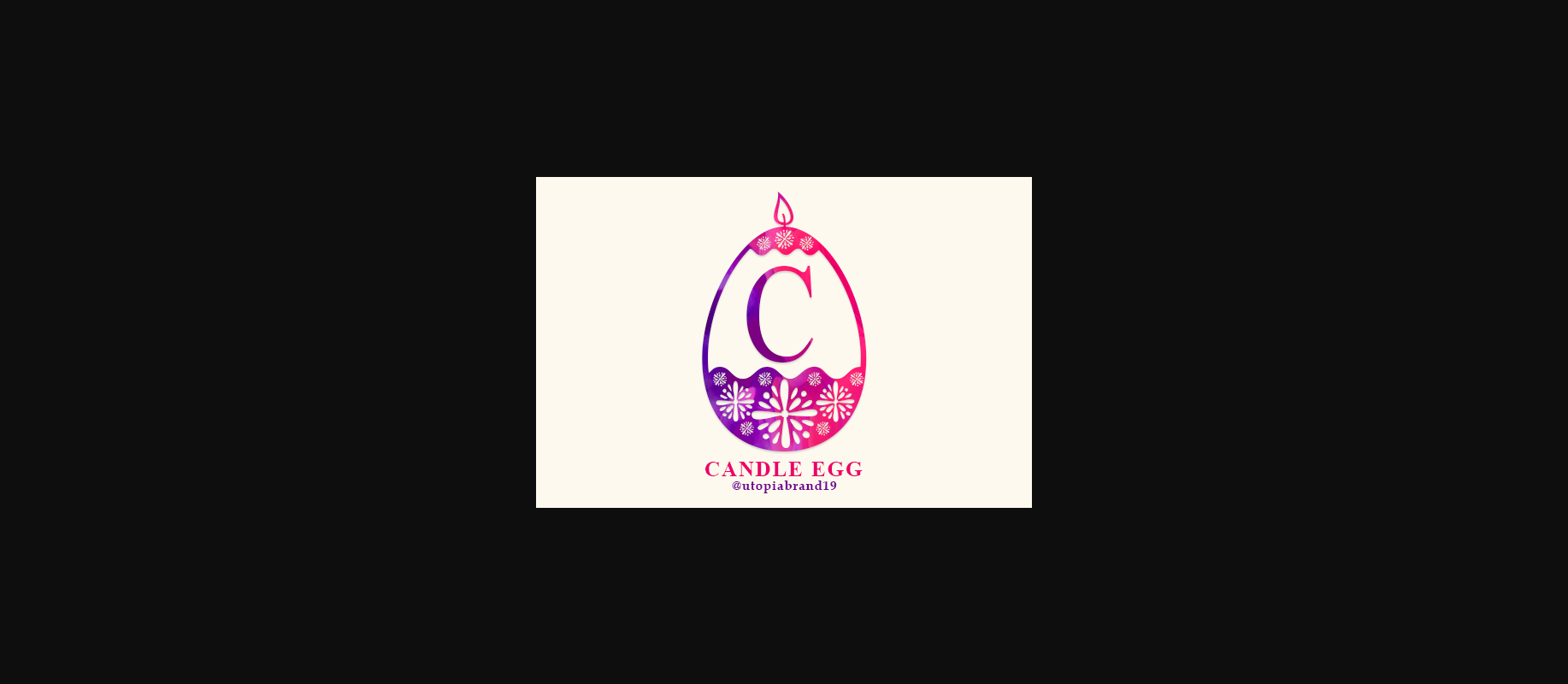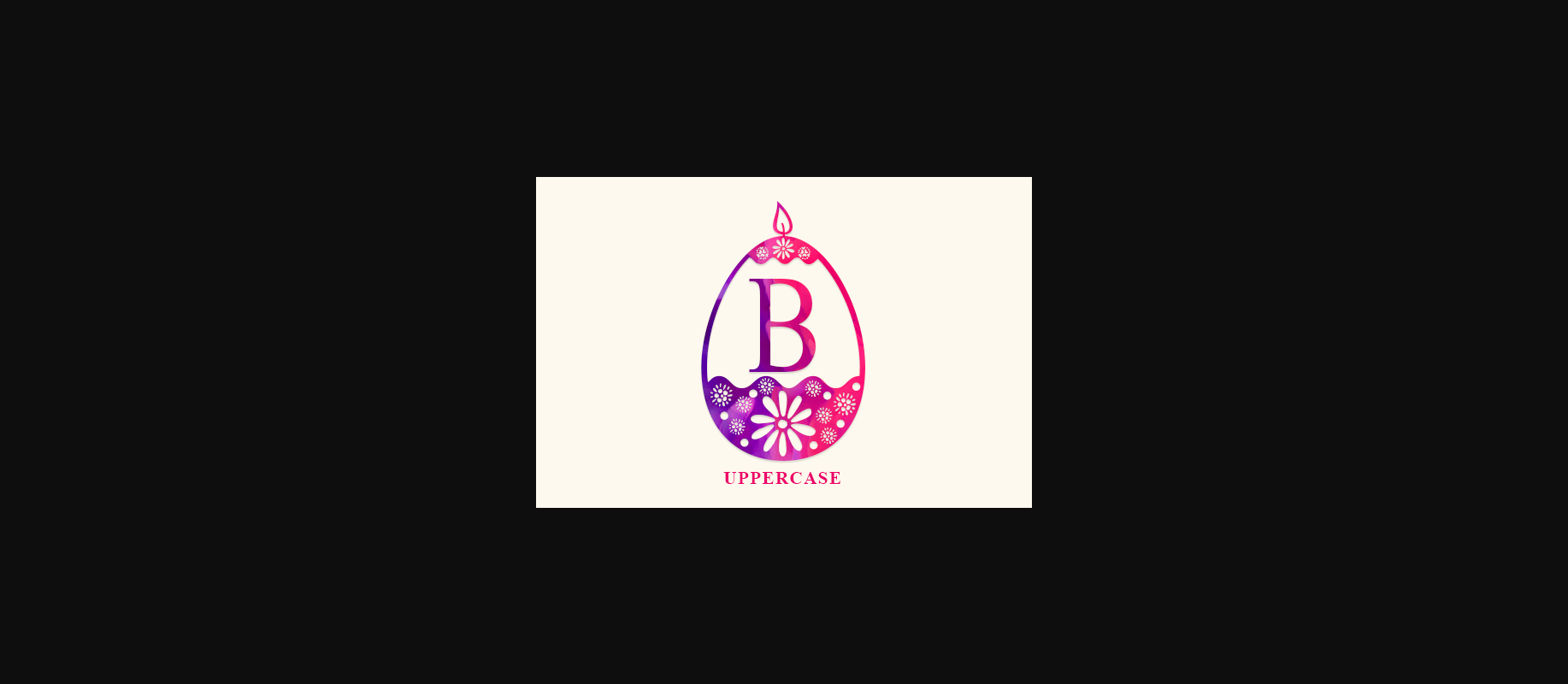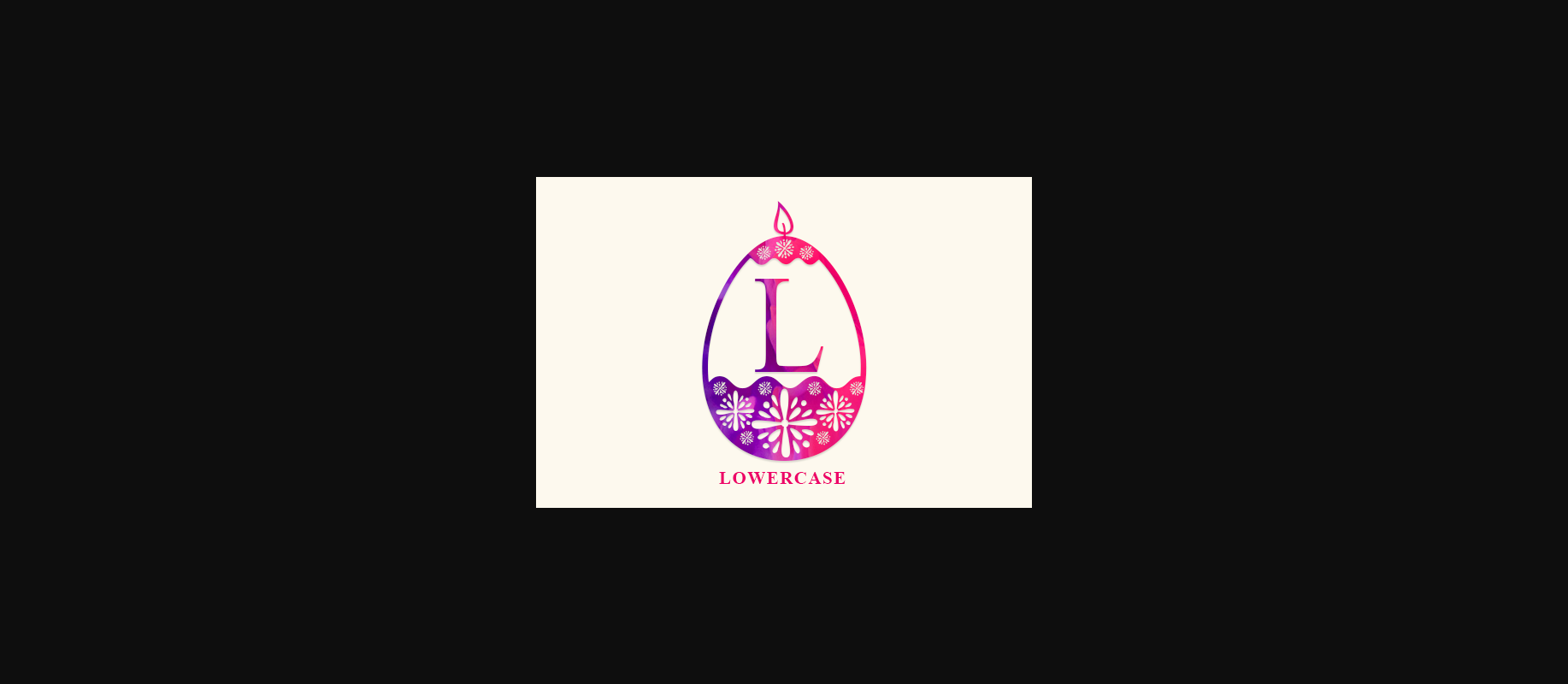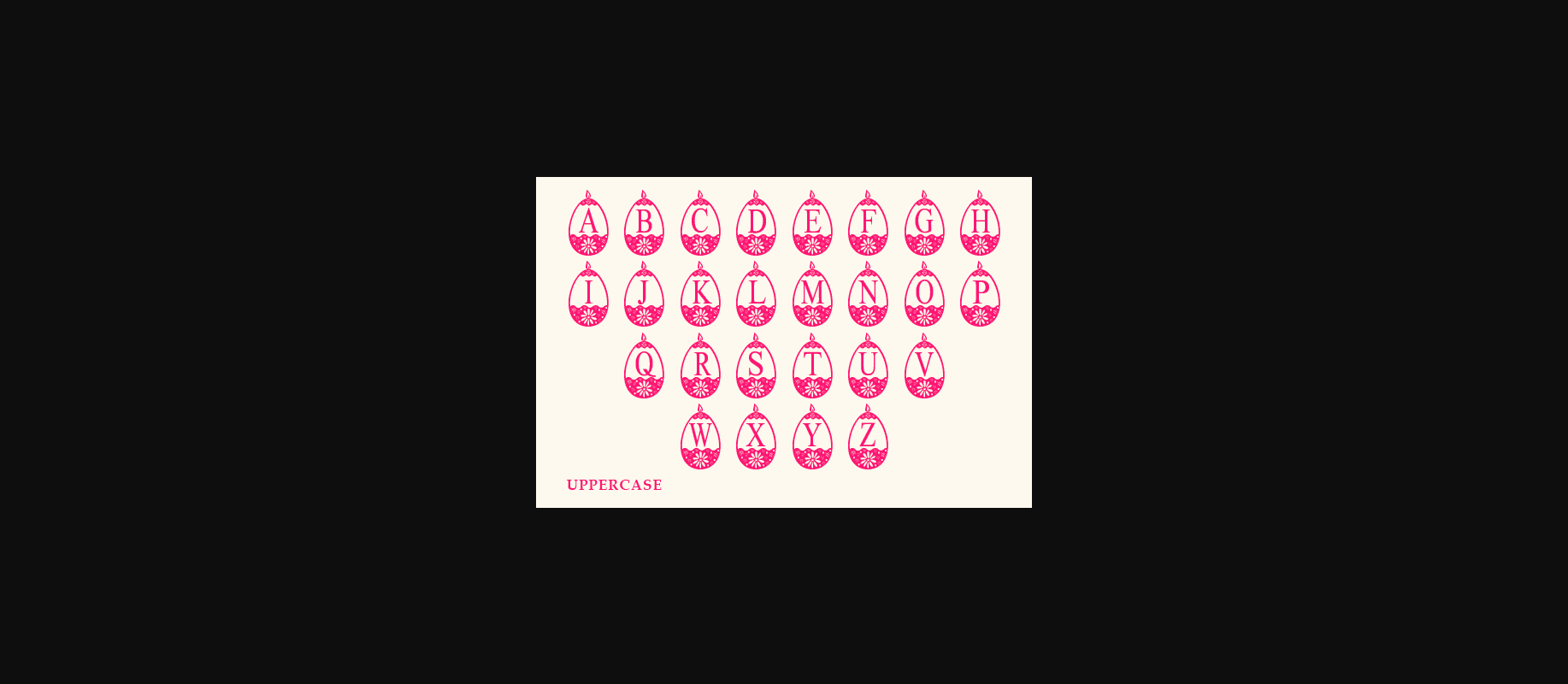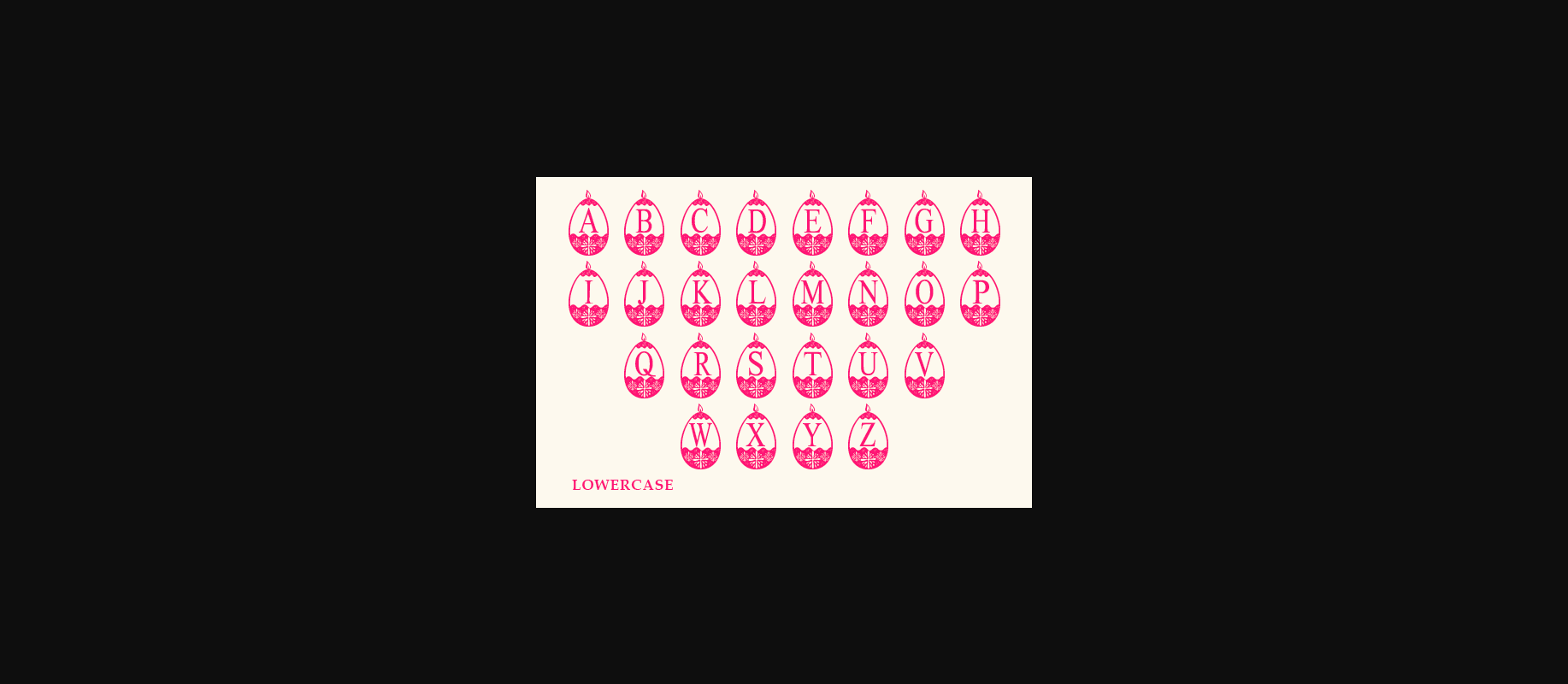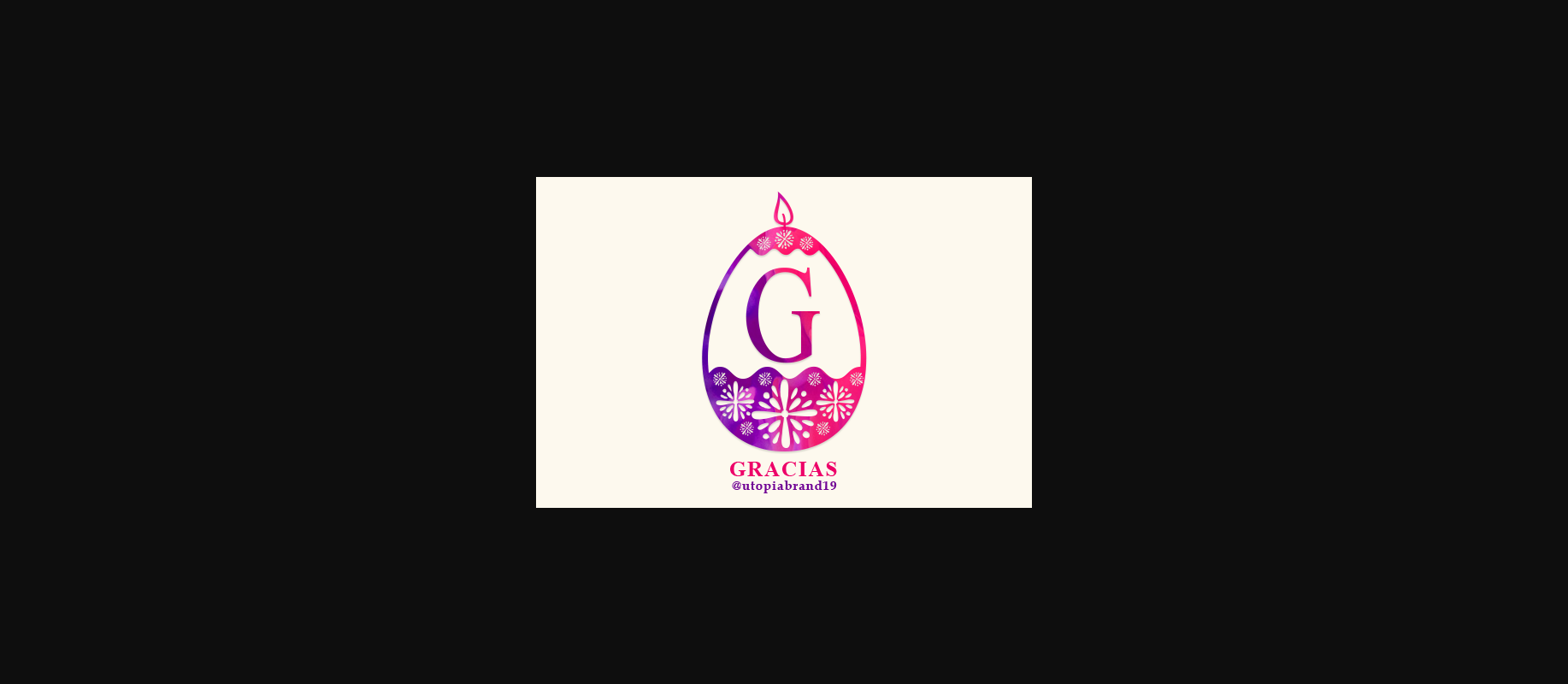
Candle Egg Font
About Candle Egg Font
Candle Egg is an Easter Holiday themed decorative font. Use this font for any crafting project that requires a personalized look!